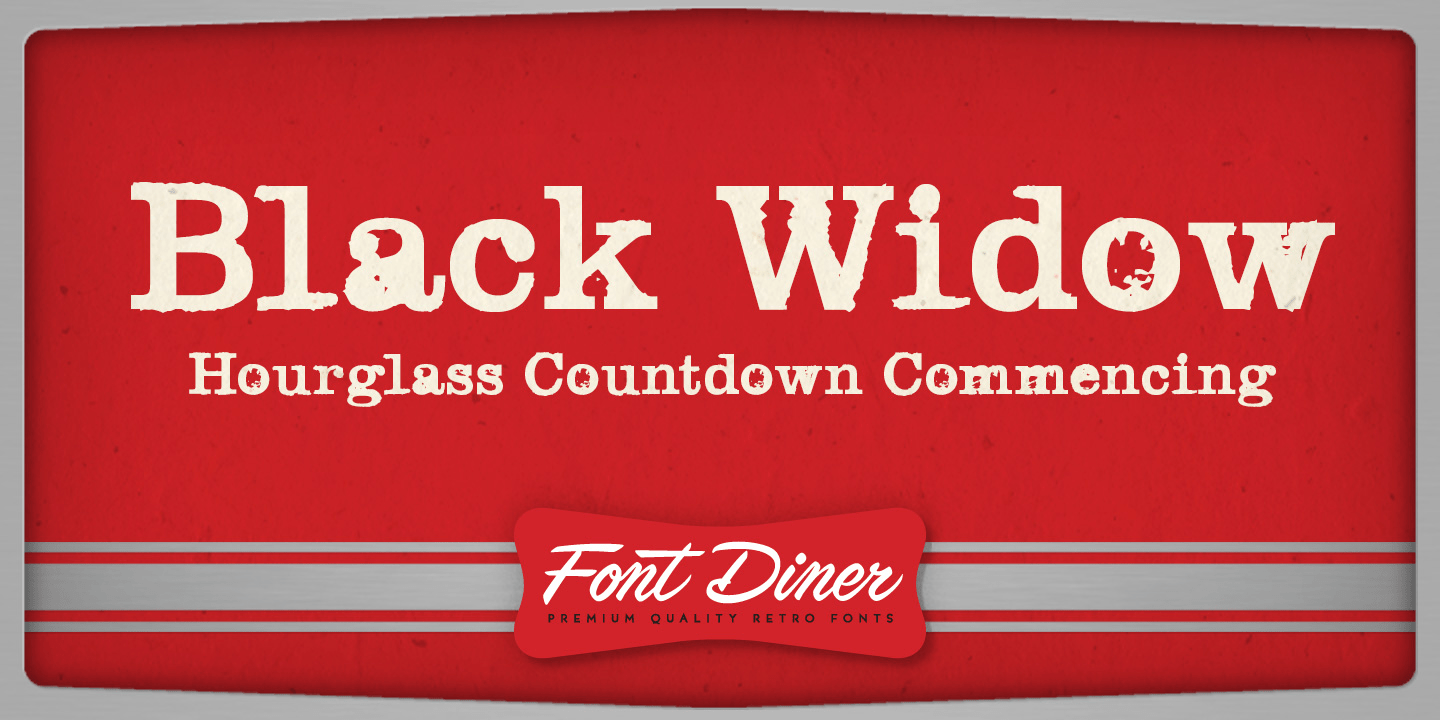
Black Widow
About Black Widow
If you\’re ever out walking late at night and you feel a tickle on your neck, it just may be the piercing fangs of a giant Black Widow spider! Widely known for its deadly bite and the telltale red hourglass on its back reminding you how much time you…